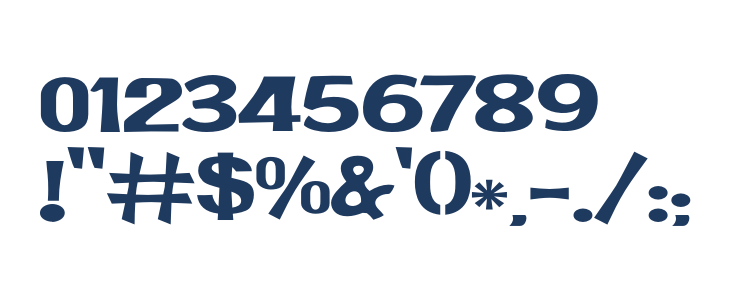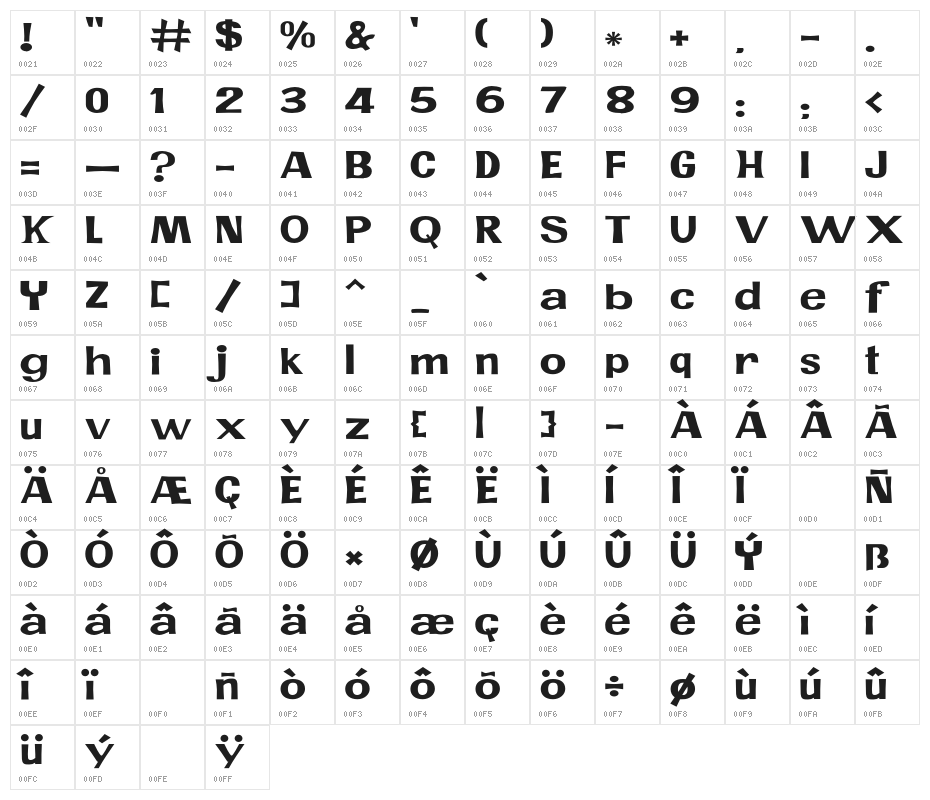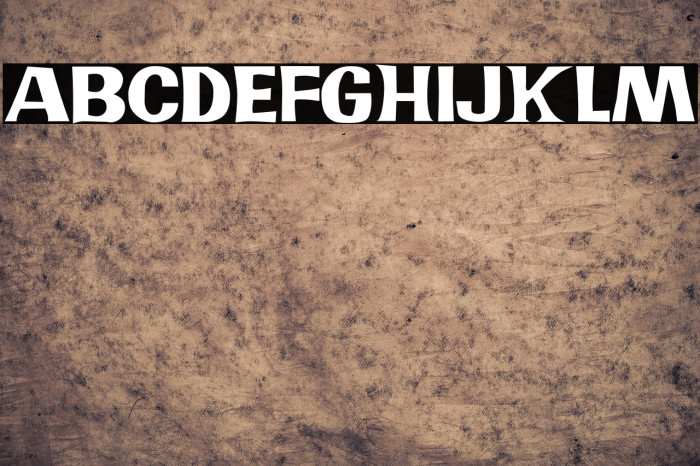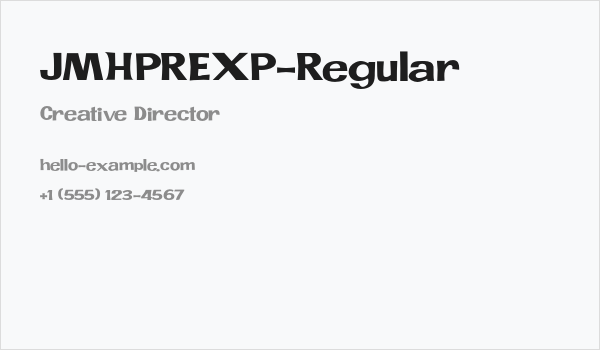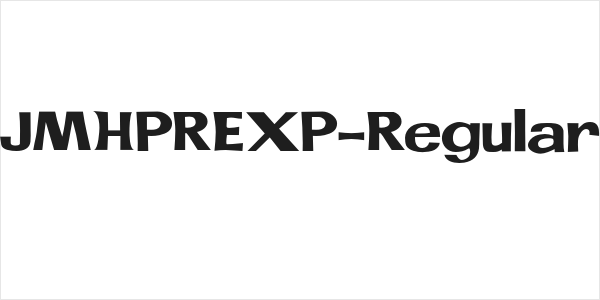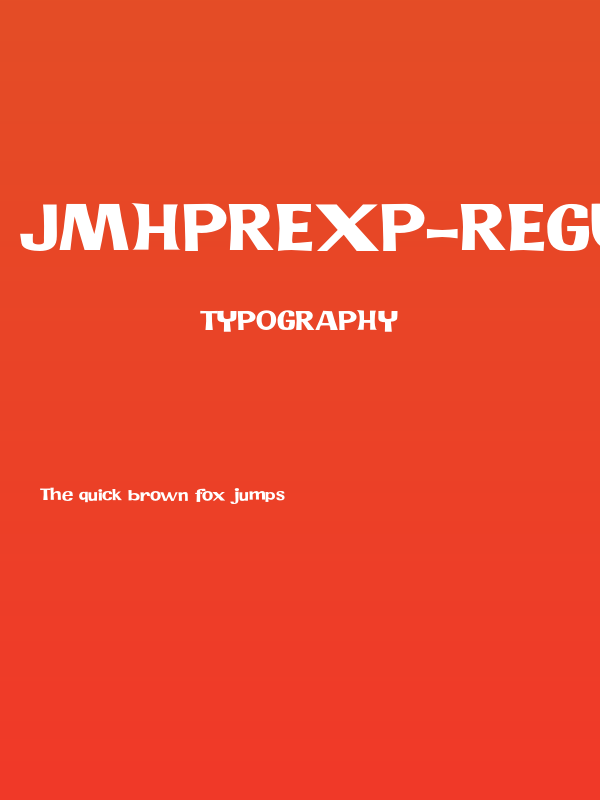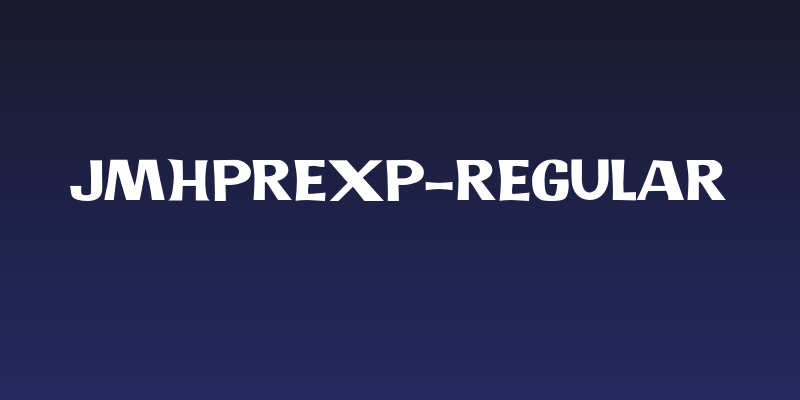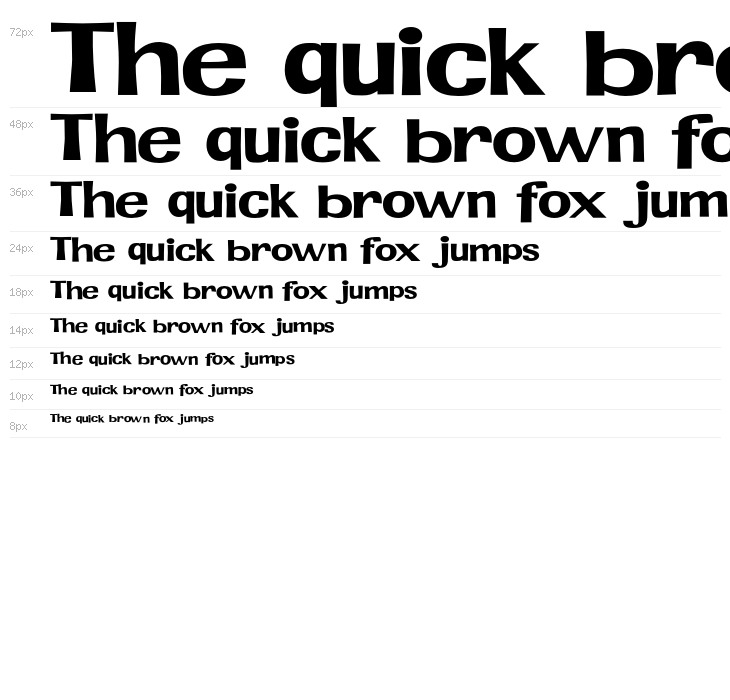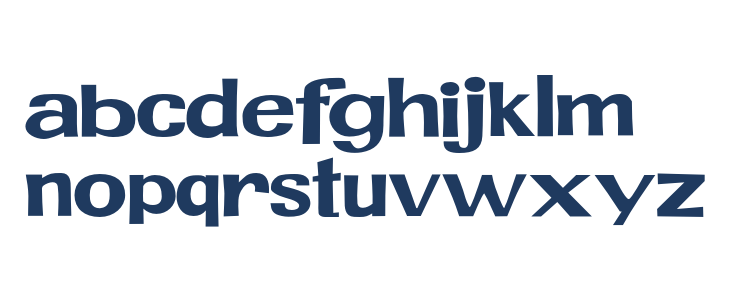
JMHPREXP-Regular Font
JMHPREXP-Regular Description
This font features a bold and dynamic style with a distinctive flair in its letterforms. The uppercase letters have a strong presence with slightly exaggerated serifs, giving them a unique and eye-catching appearance. The lowercase letters maintain a consistent weight, providing a harmonious balance between the characters. The numerals are bold and clear, ensuring readability. Special characters are designed with the same boldness, making them stand out. Overall, the font exudes a modern yet slightly retro vibe, suitable for various creative applications.
| Overall Style | Modern, Retro |
| Proposed Projects | Ideal for branding, poster design, headlines, and any project requiring a bold statement. |